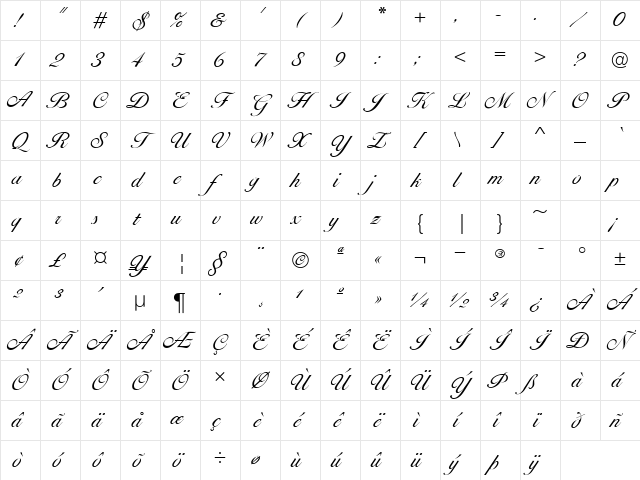
BallantinesScriptEF Regular
Foundry: (c) Elsner+Flake
Complete BallantinesScriptEF Regular glyph index. Displaying only characters natively supported by BallantinesScriptEF Regular font.
Design Context for BallantinesScriptEF
BallantinesScriptEF flows with the natural rhythm of handwritten lettering, making it ideal for designs that call for warmth and personal expression.
Font Pairing: Combine BallantinesScriptEF with a simple geometric sans for maximum contrast - the tension between flowing curves and clean structure is a classic typographic pairing.
Pro Tip: Use BallantinesScriptEF for short runs of text - names, titles, or taglines. Extended body copy in script faces tires the eye quickly.